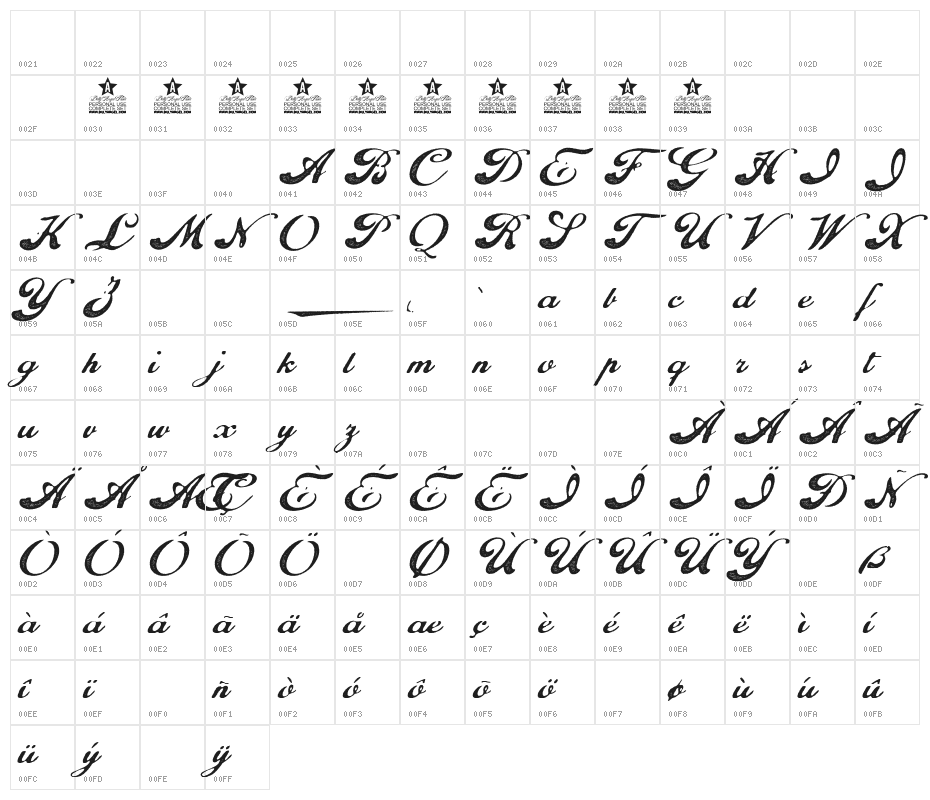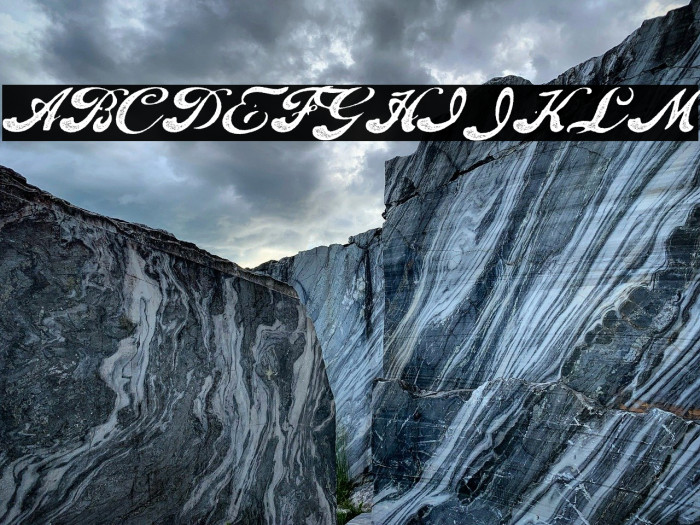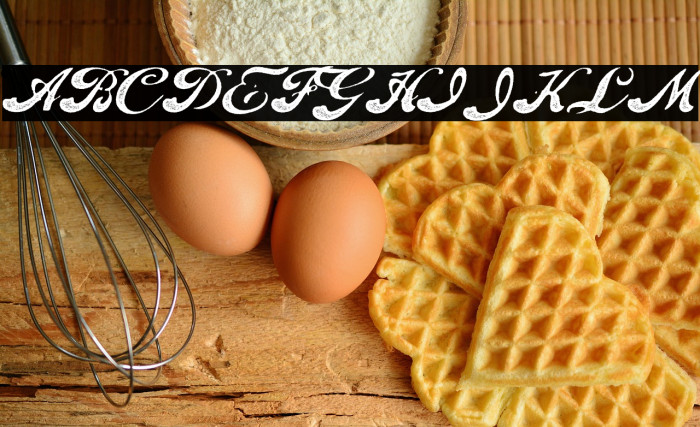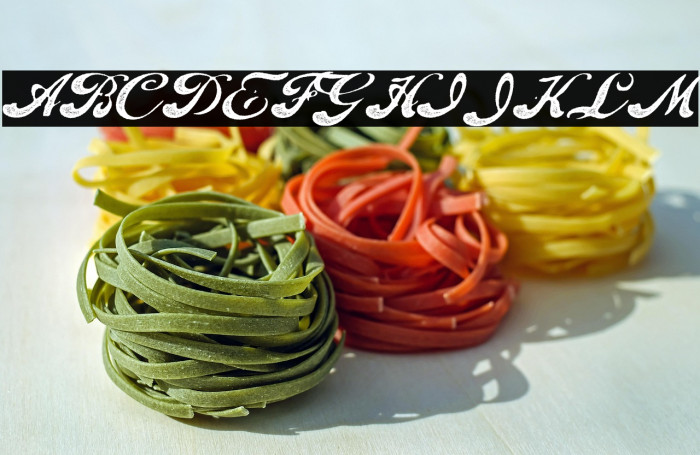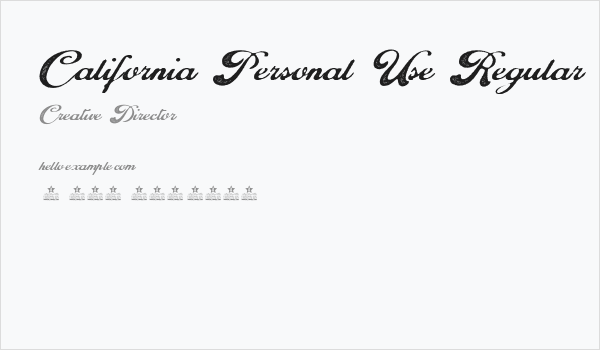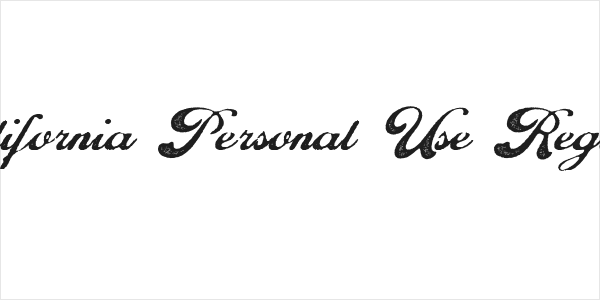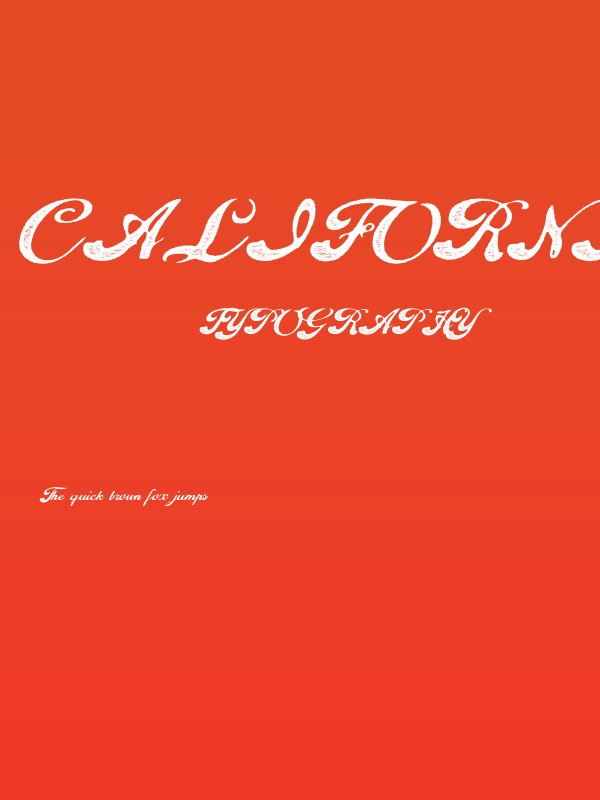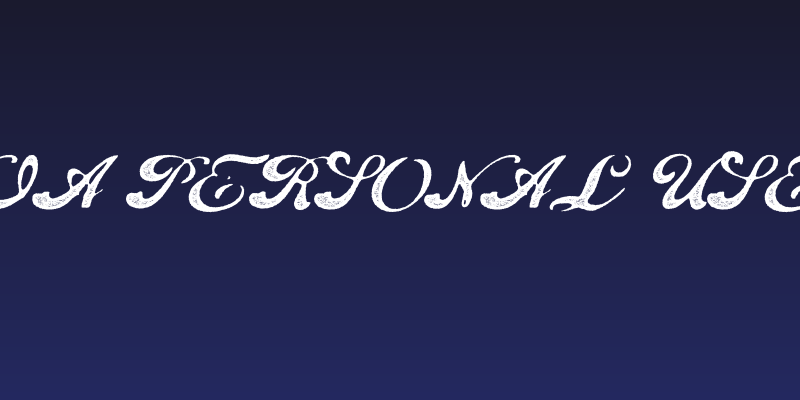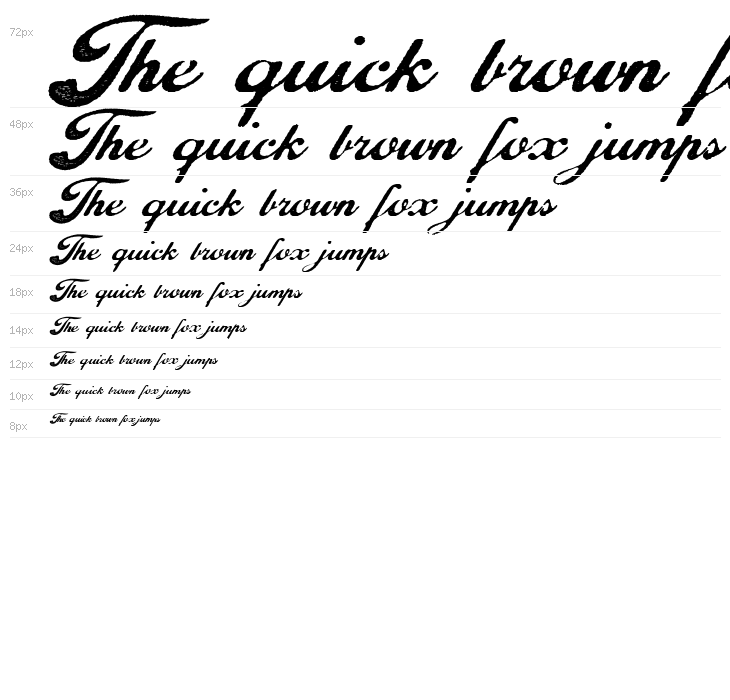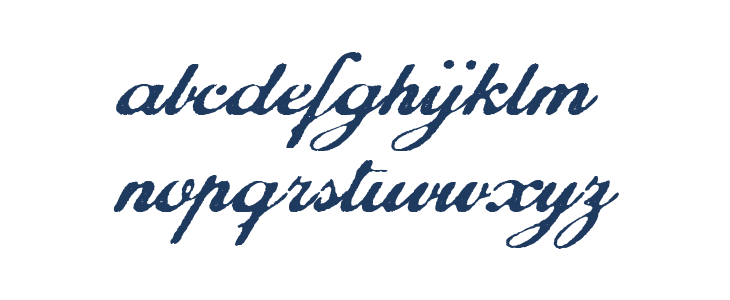
California Personal Use Regular Font
California Personal Use Regular Description
This font features a classic script style with elegant, flowing lines that evoke a sense of sophistication and tradition. The uppercase letters are ornate, with intricate curves and flourishes that add a decorative touch. The lowercase letters maintain a consistent style, with smooth connections between characters, enhancing the script's fluidity. The numbers and special characters are designed to match the overall aesthetic, providing a cohesive look. This font is ideal for projects that require a touch of elegance and formality, such as invitations, certificates, and branding materials.
| Use Case | Headlines, Invitations, Branding |
| Proposed Projects | Ideal for wedding invitations, formal event programs, branding, and logo design. |